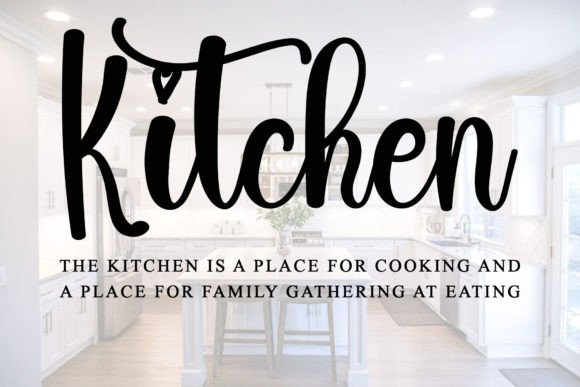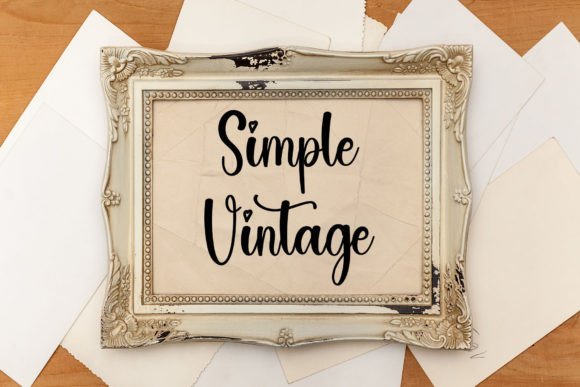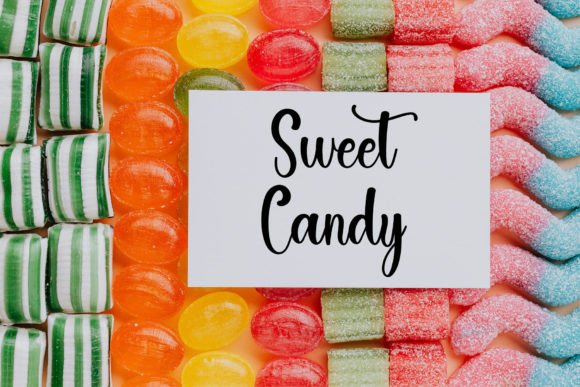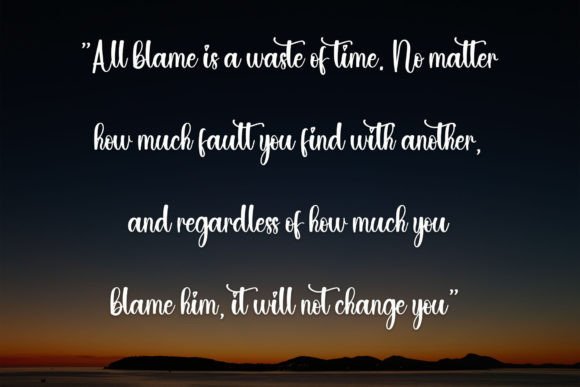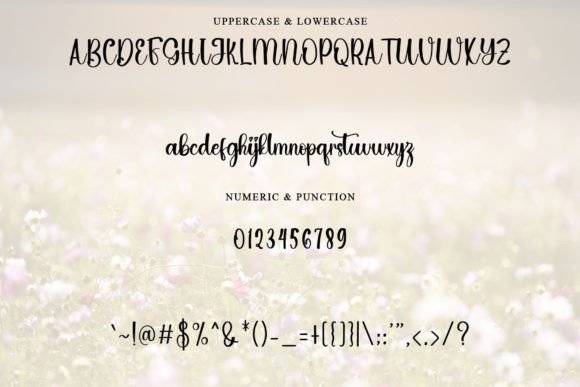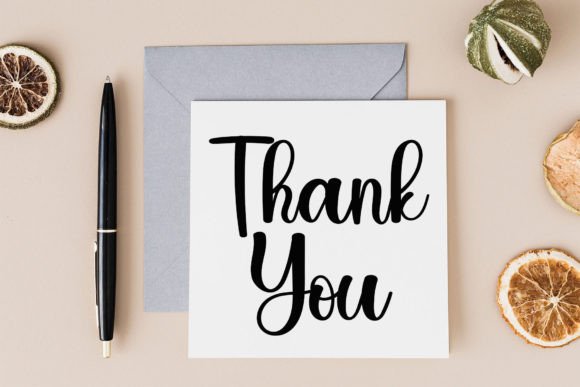
Hello Family Font: Elevate Your Designs with a Unique and Versatile Typeface
In the world of design, a font can make all the difference. It can elevate your project from ordinary to extraordinary, conveying your message with style and sophistication. If you’re a designer, crafter, or business owner looking for a font that can help you stand out, look no further than the Hello Family font. This beautiful font is taking the design world by storm, and for good reason. With its unique strokes and versatility, it’s perfect for a wide range of applications.
The Beauty of Hello Family Font
Hello Family font is a stunning typeface that boasts unique strokes that set it apart from other fonts. Its distinctive style makes it incredibly eye-catching, and its beauty can be applied to any glyph. Whether you’re working on a logo, banner, or social media graphic, this font is sure to impress. The splendor of Hello Family font lies in its ability to add a touch of elegance and sophistication to any design.
Endless Applications for Hello Family Font
One of the best things about Hello Family font is its versatility. It’s suitable for a wide range of businesses and projects, including:
- Mockups: Create stunning mockups for your clients or business with Hello Family font.
- Banners: Design eye-catching banners for events, promotions, or sales.
- Handicrafts: Add a personal touch to your handmade crafts with this beautiful font.
- Wall Decorations: Create stunning wall art with Hello Family font.
- YouTube: Use this font to create engaging thumbnails or video titles.
- Logos: Design unique and memorable logos for your business.
These are just a few examples of the many ways you can use Hello Family font. Its versatility and beauty make it perfect for any design project.
Take Your Business to the Next Level with Hello Family Font
By using Hello Family font, you can take your business to the next level. Its unique style and versatility make it perfect for businesses looking to stand out from the competition. Whether you’re a designer, crafter, or business owner, this font can help you:
- Establish a strong brand identity
- Create engaging and memorable designs
- Convey your message with style and sophistication
With Hello Family font, you can create designs that are not only visually stunning but also effective in communicating your message.
In conclusion, Hello Family font is a beautiful and versatile typeface that’s perfect for designers, crafters, and businesses looking to elevate their designs. With its unique strokes, versatility, and ease of installation, it’s an excellent choice for a wide range of applications. By using Hello Family font, you can take your business to the next level and create stunning designs that leave a lasting impression.